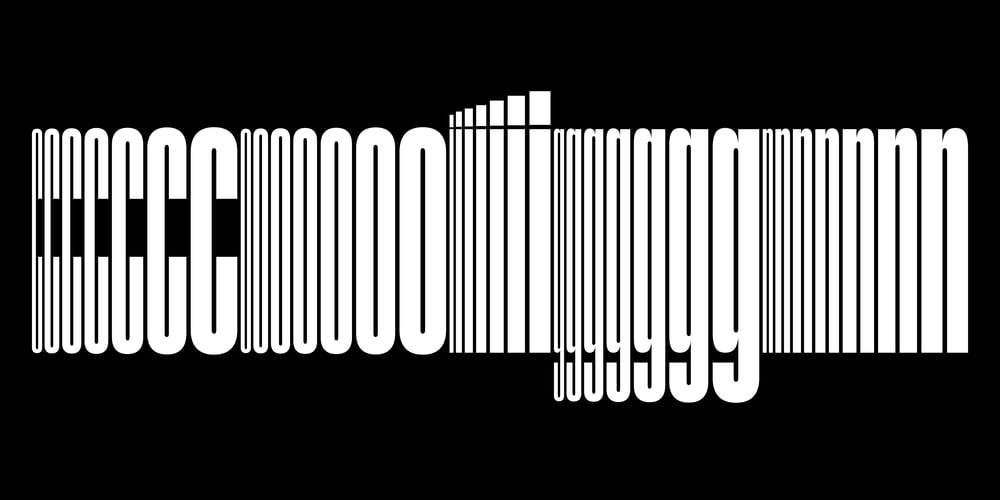
Coign Font Family was designed by Colophon Foundry and published by Colophon Foundry. Coign contains 50 styles and family package options. Coign is an extensive study of condensed forms based on the DeLittle type foundry’s Elongated Sans. DeLittle’s type — extending far beyond the realms of legibility — challenges conventional letterforms, pushing the notion of what is ‘condensed’ to the absolute limit.A quoin, coyne, coigne or, in this case, Coign, is a wedge-like device used in letterpress printing to lock type and spacing material into place within a chase or directly onto a press.Combining the systematic approach of Adrian Frutiger’s Univers and the eccentricities of 19th and 20th century wood type, Coign offers a vast range of condensed styles that explore how the relationship between counterform and letter spacing can alter the expression and texture of type.Super condensed designs are typically limited to a small range of styles as part of a much larger family, whereas Coign offers 28 styles — comprising seven weights in four different widths — all of them super condensed.